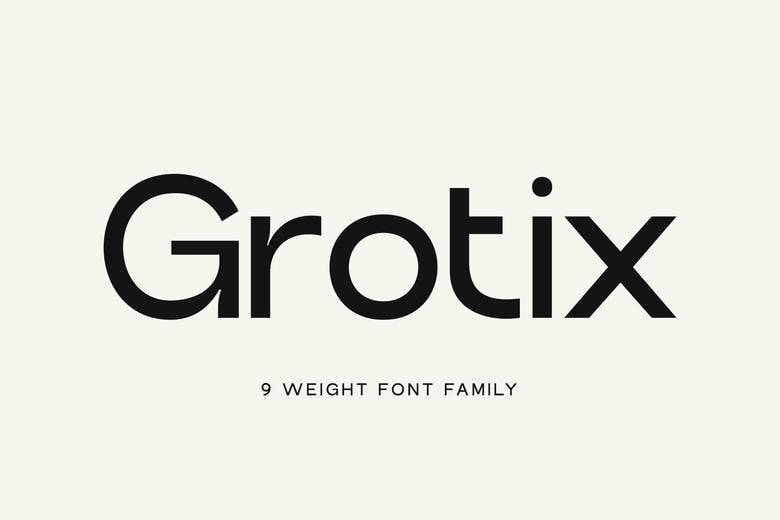
Grotix is a modern, elegant sans-serif typeface. Drawing on traditional grotesque typefaces but with a contemporary twist, Grotix offers clean lines, geometric proportions and a professional aesthetic to all its characters.
Ideal for branding, editorial, web, packaging and user interface design, Grotix is available in a complete set of weights from Thin to Extra Bold with corresponding italics for complete design freedom.
Grotix Sans Serif Font Family